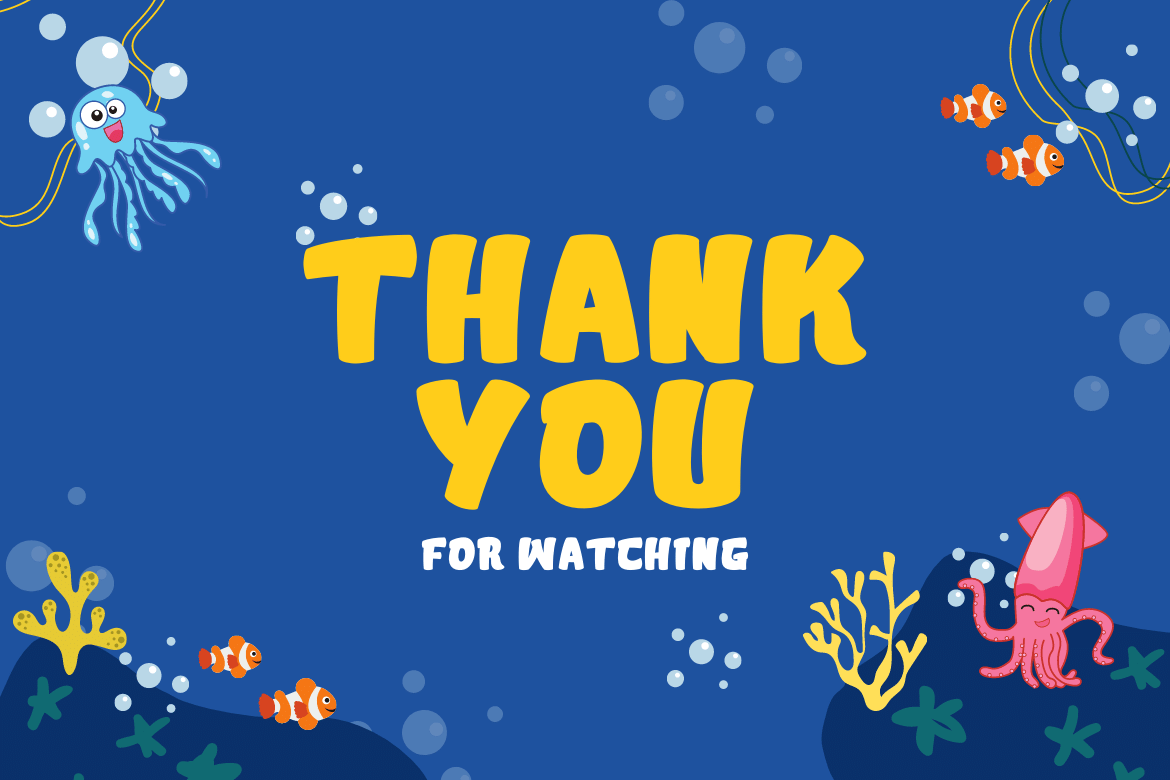
Sedifo
Introducing our newest display font, Sedifo, which has a fun, cheerful, and unique font. When used in conjunction with other fonts in our collection, it gives you the ability to create unique, captivating, and highly impressive visual displays.
This multipurpose font will be very easy for you to use in your various projects.